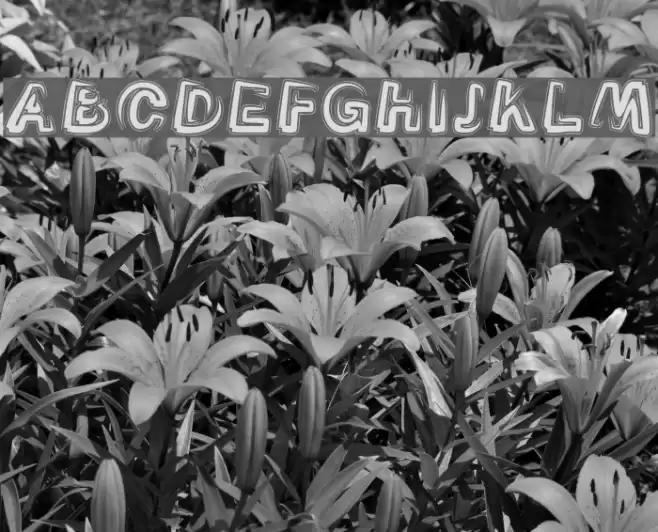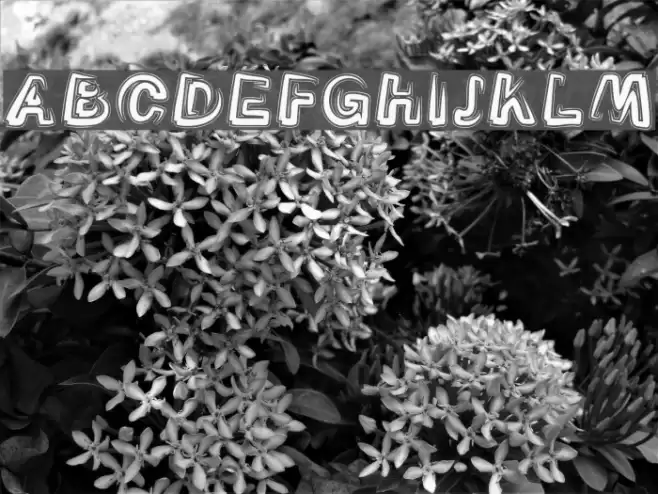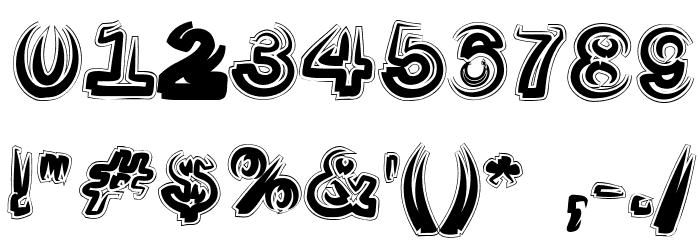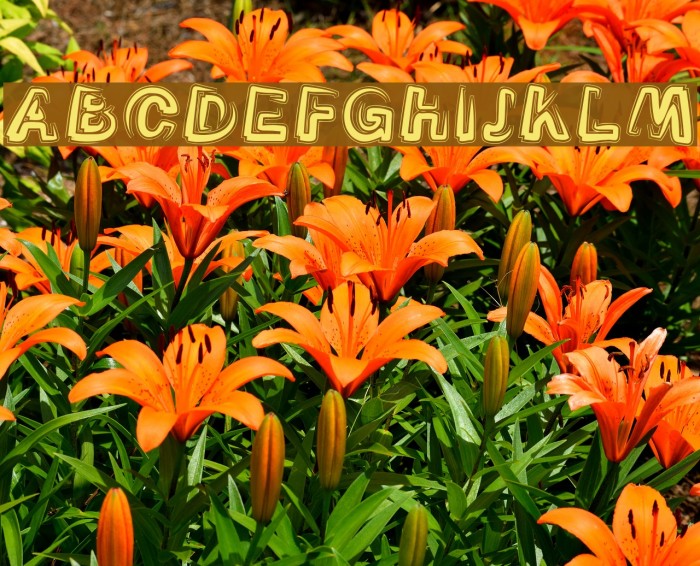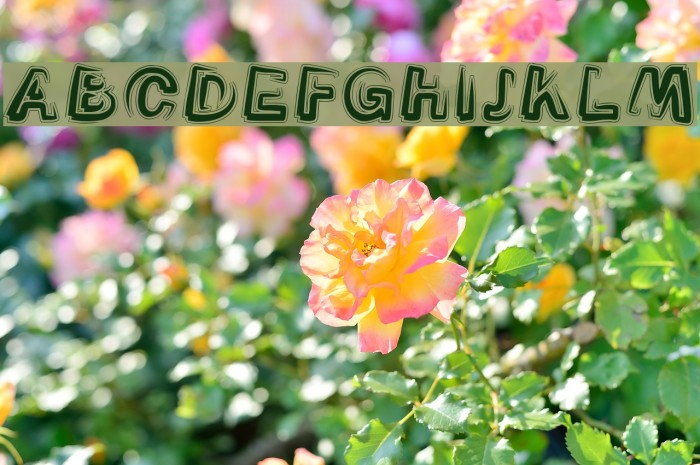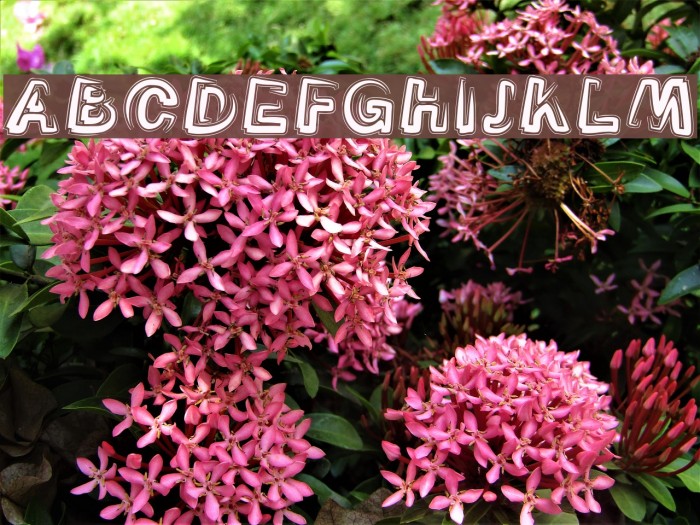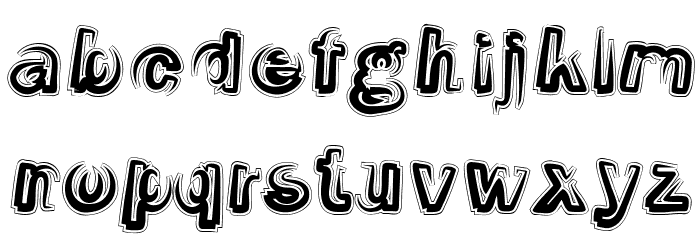
Smoke-Contour-Italic Font
Smoke-Contour-Italic Description
This font features a bold and playful design with a distinctive contour effect that gives each character a three-dimensional appearance. The letters are italicized, adding a dynamic and energetic feel. The thick strokes and outlined edges create a striking contrast, making it highly visible and attention-grabbing. The font includes a full set of uppercase and lowercase letters, numbers, and a variety of special characters, all maintaining the same stylistic theme. Its unique style is perfect for projects that require a fun and bold statement.
Bold, italicized font with a playful contour effect from Crazy fonts.
- Proposed Projects: Ideal for posters, headlines, logos, and any creative projects that require a bold and playful typeface.